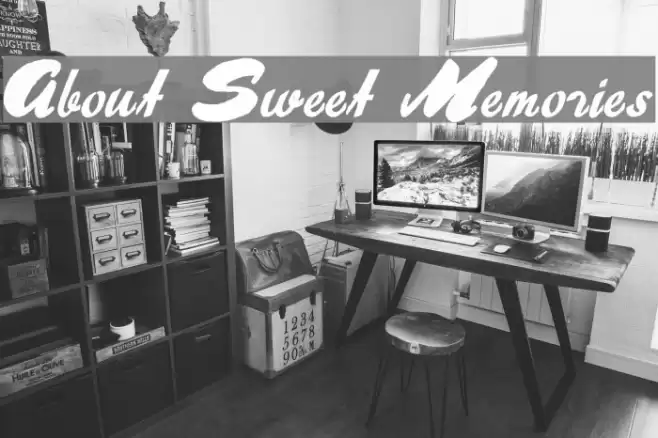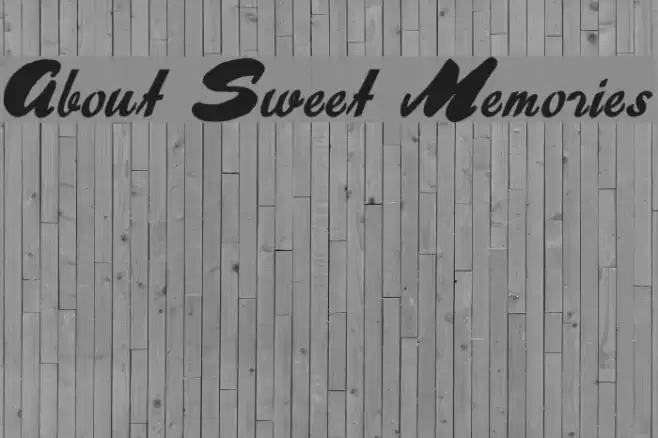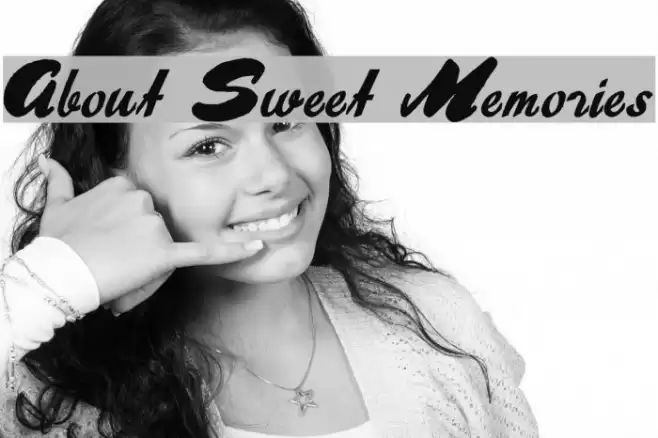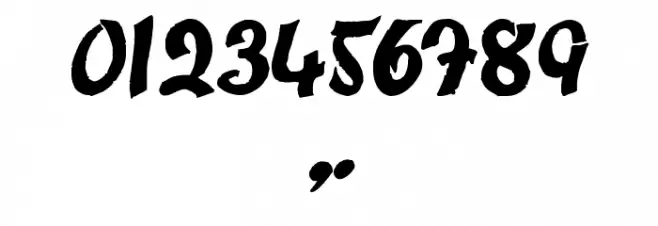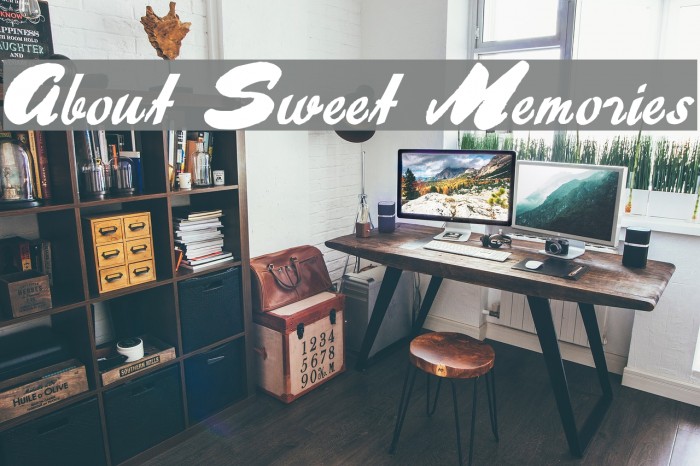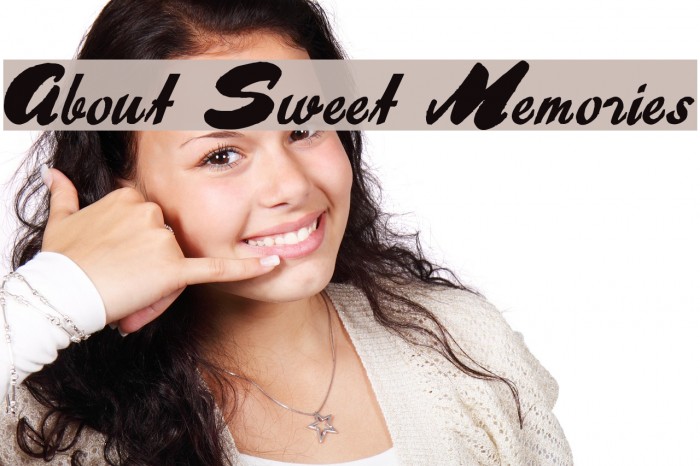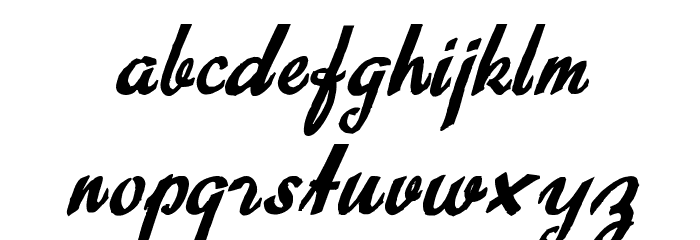
About Sweet Memories Font
About Sweet Memories Description
This font exudes a bold and dynamic presence with its cursive, handwritten style. The characters are fluid and connected, giving a sense of motion and elegance. The uppercase letters are particularly striking, with sweeping curves and dramatic flourishes that add a touch of sophistication. The lowercase letters maintain a consistent flow, complementing the uppercase with their smooth transitions and rounded forms. The numerals are equally expressive, featuring bold strokes and a playful yet refined appearance. This font is perfect for projects that require a personal touch or a sense of nostalgia, as it captures the essence of handwritten notes and letters.
A bold, cursive handwritten font with dynamic, flowing characters from Uncategorized fonts.
- Proposed Projects: Ideal for wedding invitations, greeting cards, personal branding, and nostalgic-themed designs.
- Use Case: Logos, Invitations, Personal Branding